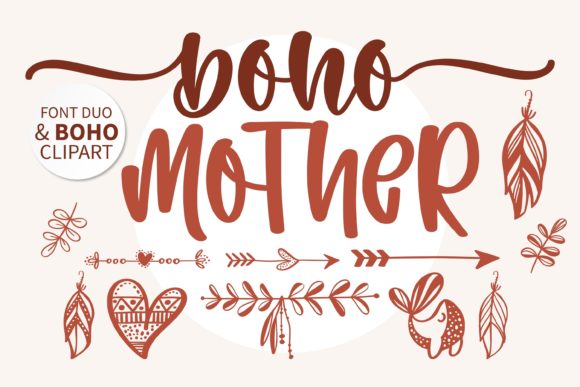
Introducing Boho Mother Font: Elevate Your Designs with Elegance and Charm
In the world of typography, fonts play a crucial role in conveying the tone and personality of a design. Among the numerous font styles available, handwritten fonts have gained immense popularity for their unique and personal touch. One such font that has caught the attention of designers and crafty enthusiasts alike is the Boho Mother Font. This stunning duo-styled handwritten font is a perfect blend of charm and delicacy, making it an excellent choice for a wide range of creative projects.
What Makes Boho Mother Font Special?
Boho Mother Font is a beautifully crafted handwritten font that exudes elegance and sophistication. Its unique dual style makes it versatile and suitable for various design applications, from branding and packaging to invitations and digital media. The font’s charm lies in its delicate strokes, which add a touch of whimsy and playfulness to any design.
Key Features of Boho Mother Font
- Duo-Styled Handwritten Font: Boho Mother Font comes in two styles, allowing you to experiment with different looks and feels.
- PUA Encoded: The font is PUA (Private Use Area) encoded, making it easy to access all glyphs and swashes.
- Charming and Delicate: The font’s unique strokes and swashes add a touch of elegance and sophistication to any design.
Uses of Boho Mother Font
Boho Mother Font is an incredibly versatile font that can be used in a variety of design projects, including:
- Branding and Packaging: Create stunning logos, labels, and packaging designs that stand out.
- Invitations and Stationery: Design beautiful invitations, greeting cards, and stationery that exude elegance.
- Digital Media: Use Boho Mother Font in social media graphics, blog posts, and website designs to add a personal touch.
- Crafting and DIY Projects: Perfect for crafty enthusiasts, the font can be used in various DIY projects, such as scrapbooking and journaling.
Benefits of Using Boho Mother Font
Using Boho Mother Font in your designs offers several benefits, including:
- Unique and Personal Touch: The font’s handmade feel adds a unique and personal touch to your designs.
- Time-Saving: With its PUA encoding, you can easily access all glyphs and swashes, saving you time and effort.
- Versatility: The font’s dual style and range of swashes make it suitable for various design applications.
Tips for Using Boho Mother Font
To get the most out of Boho Mother Font, here are some tips to keep in mind:
- Experiment with Different Styles: Try out the font’s dual style and various swashes to find the perfect look for your design.
- Pair with Other Fonts: Combine Boho Mother Font with other fonts to create a unique and visually appealing design.
- Adjust Font Size and Color: Experiment with different font sizes and colors to add depth and interest to your design.
- Use in Combination with Graphics: Pair Boho Mother Font with graphics and illustrations to create a stunning visual effect.